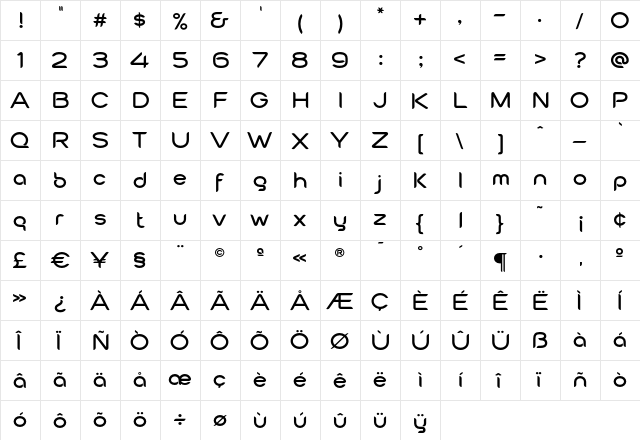
Cabourg OT Bold
| Foundry | Gustavo Piqueira |
| Designer | Gustavo Piqueira |
Design Context for Cabourg OT Typeface
Cabourg OT takes a measured approach to typography — its balanced proportions and neutral character make it a reliable workhorse for both digital and print work. Its bold stroke weight gives it real presence on the page.